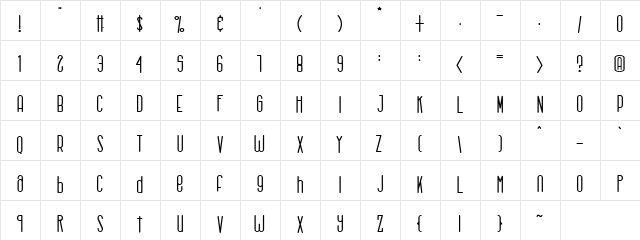
Rhantica Regular
Design Context for Rhantica Typeface
Rhantica is a composed and adaptable typeface that performs quietly and consistently across a wide range of design contexts.